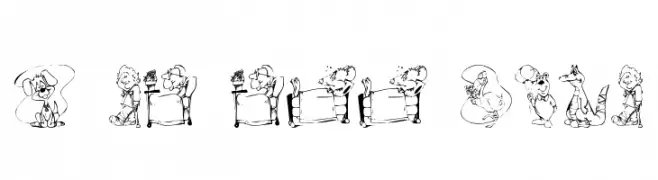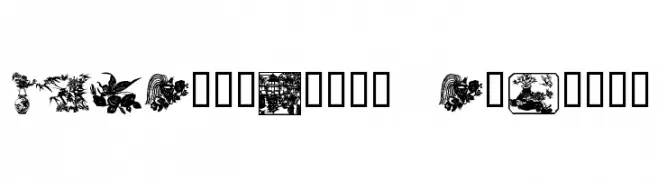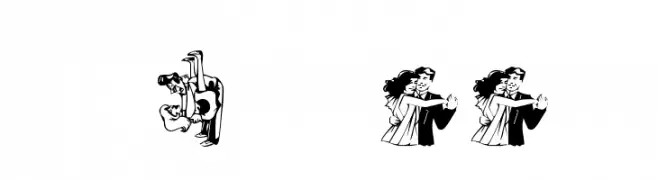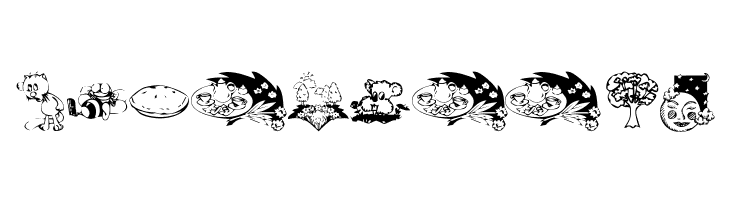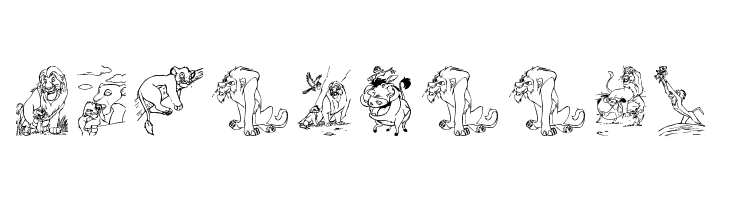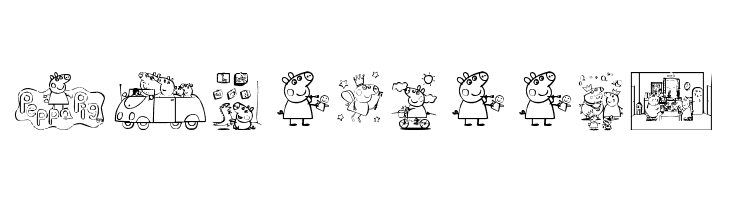
A decorative font with playful summer-themed illustrations.
Whimsical dingbat font with playful, detailed illustrations.
A playful dingbat font with cartoon-style illustrations for creative projects.
A decorative font with cartoon-style dancing couple illustrations.
Ornate pictorial dingbat font with floral and animal motifs.
Hand-drawn pictogram dingbat font with playful illustrations.
Illustrative, character-based decorative font with lion-themed sketches.
Cartoonish, illustrated font with bold outlines and playful character drawings.
Cartoonish decorative font with character-based illustrations.